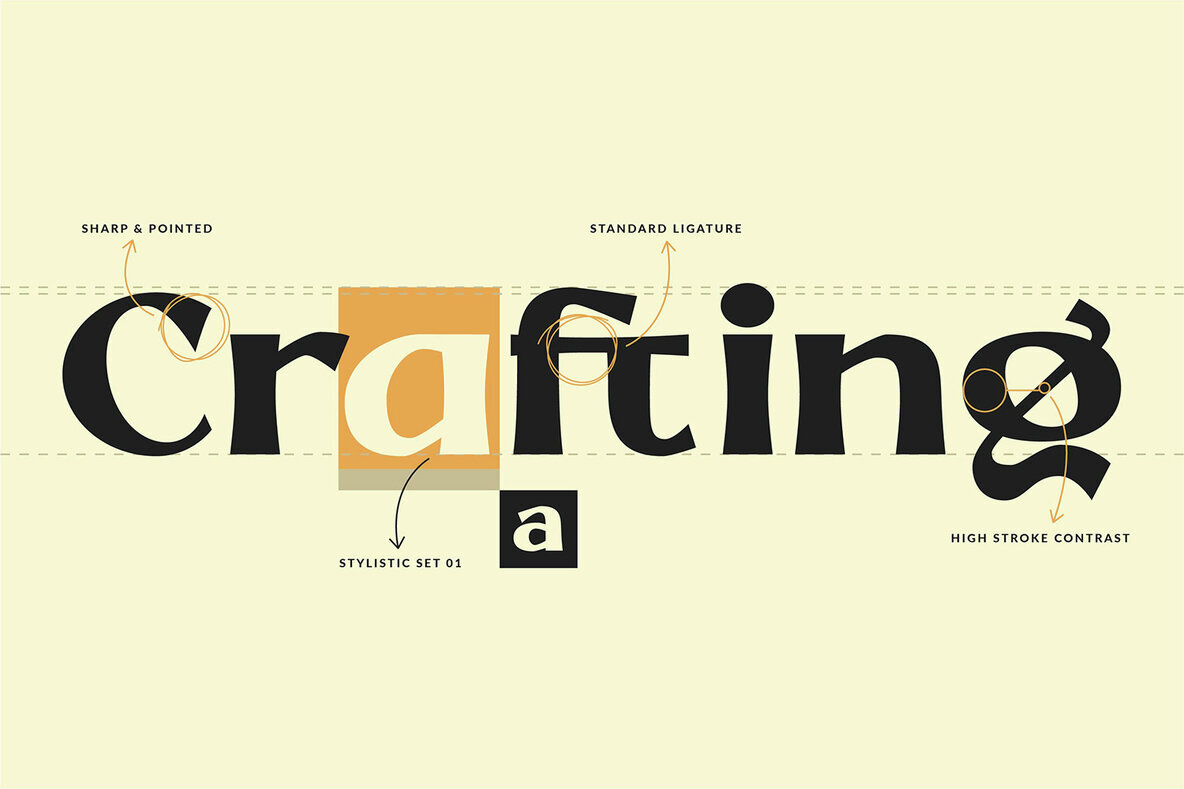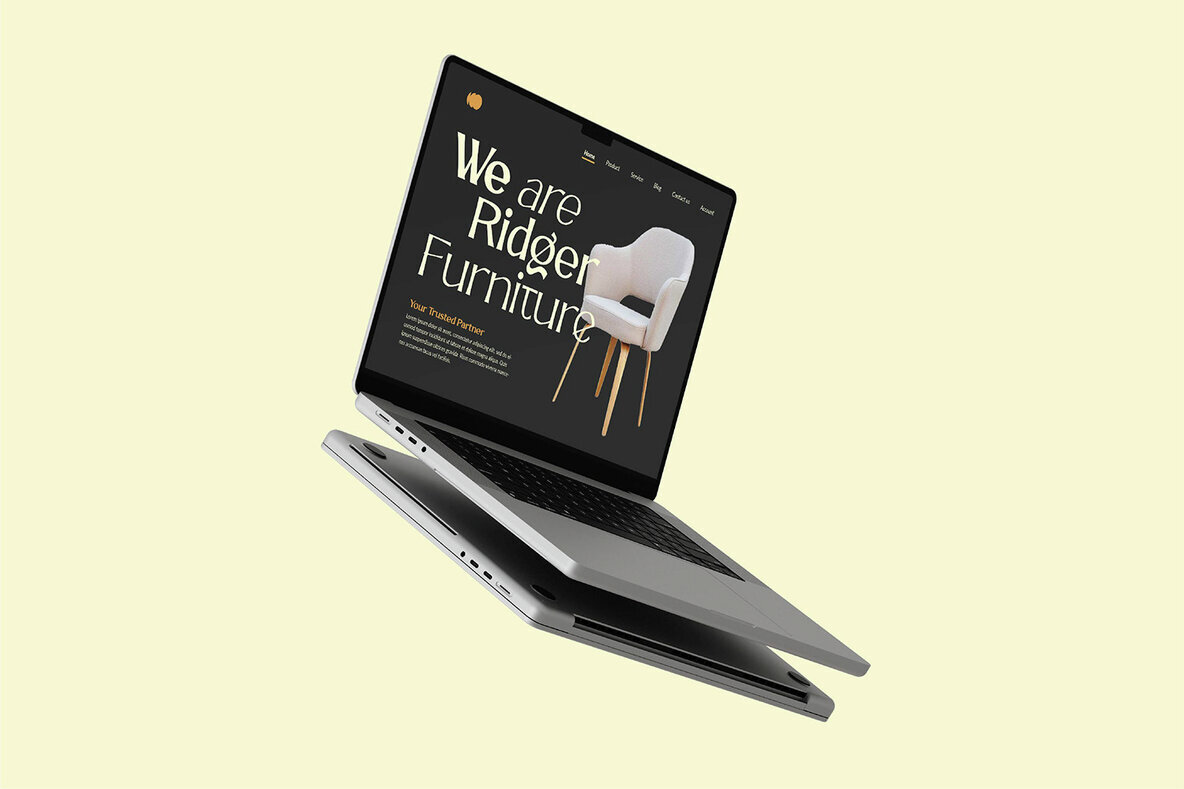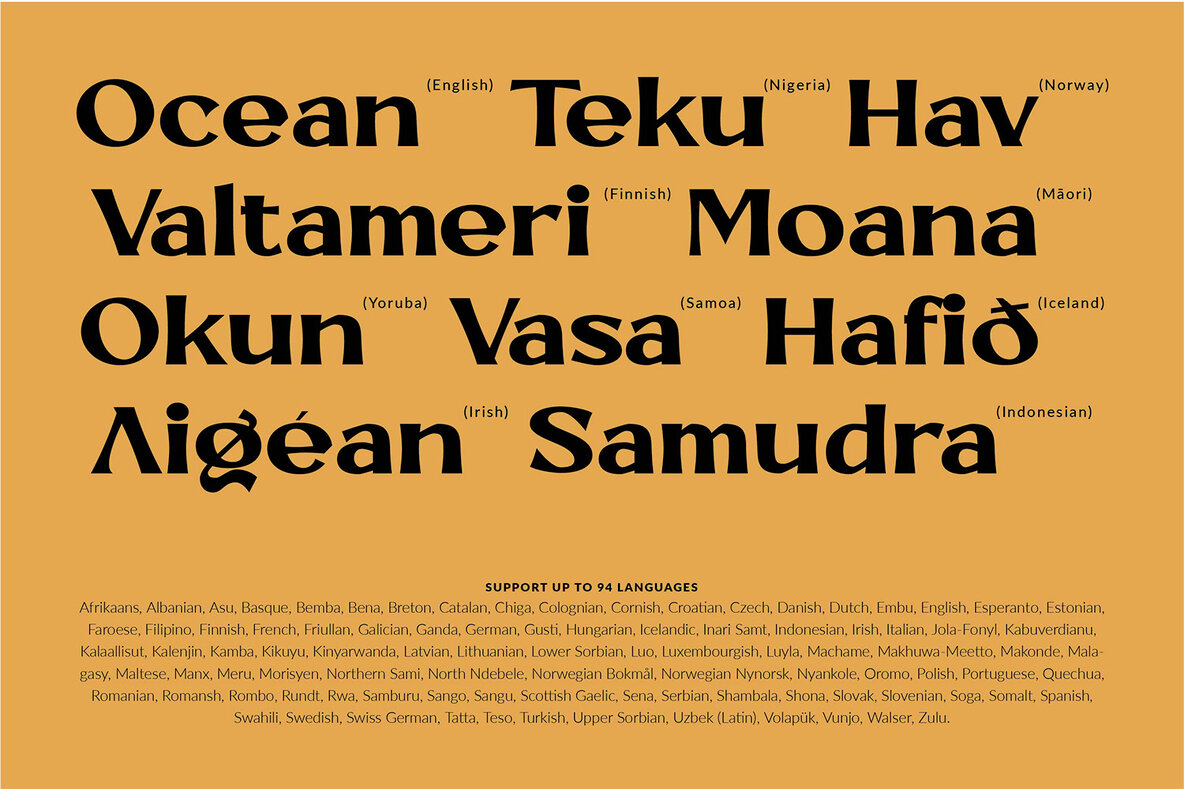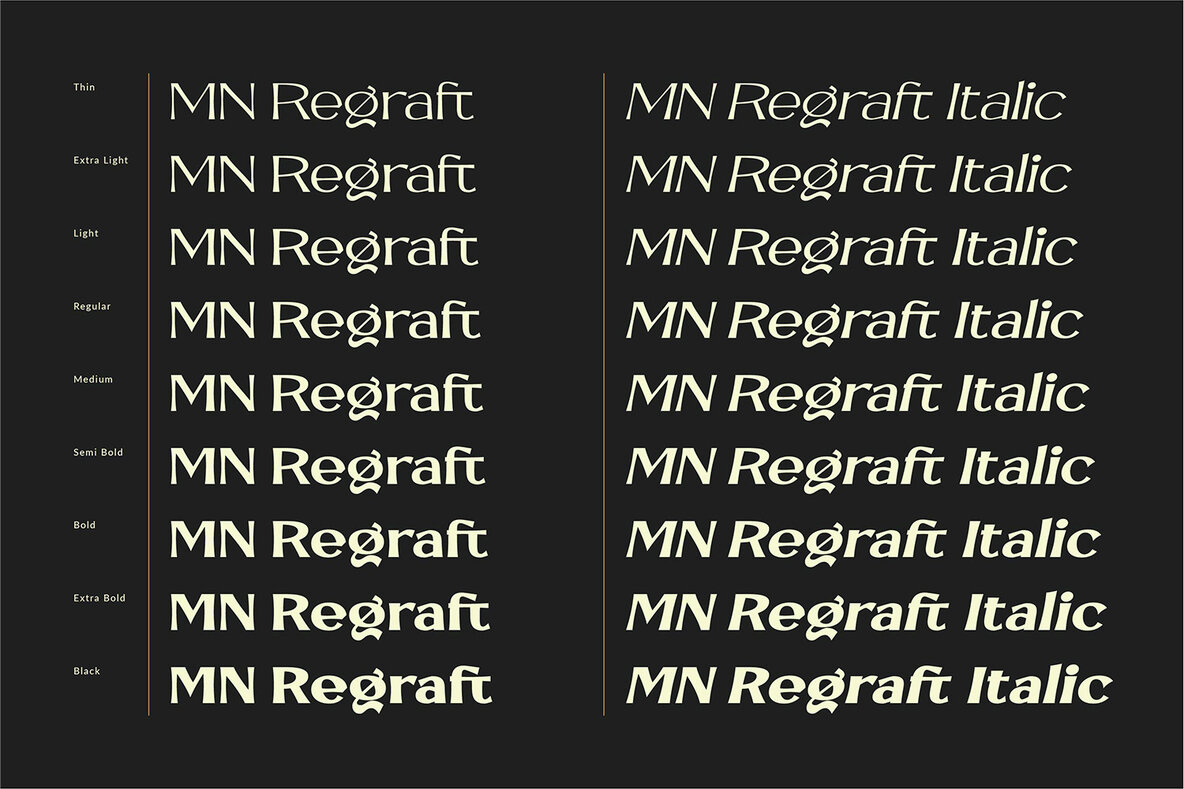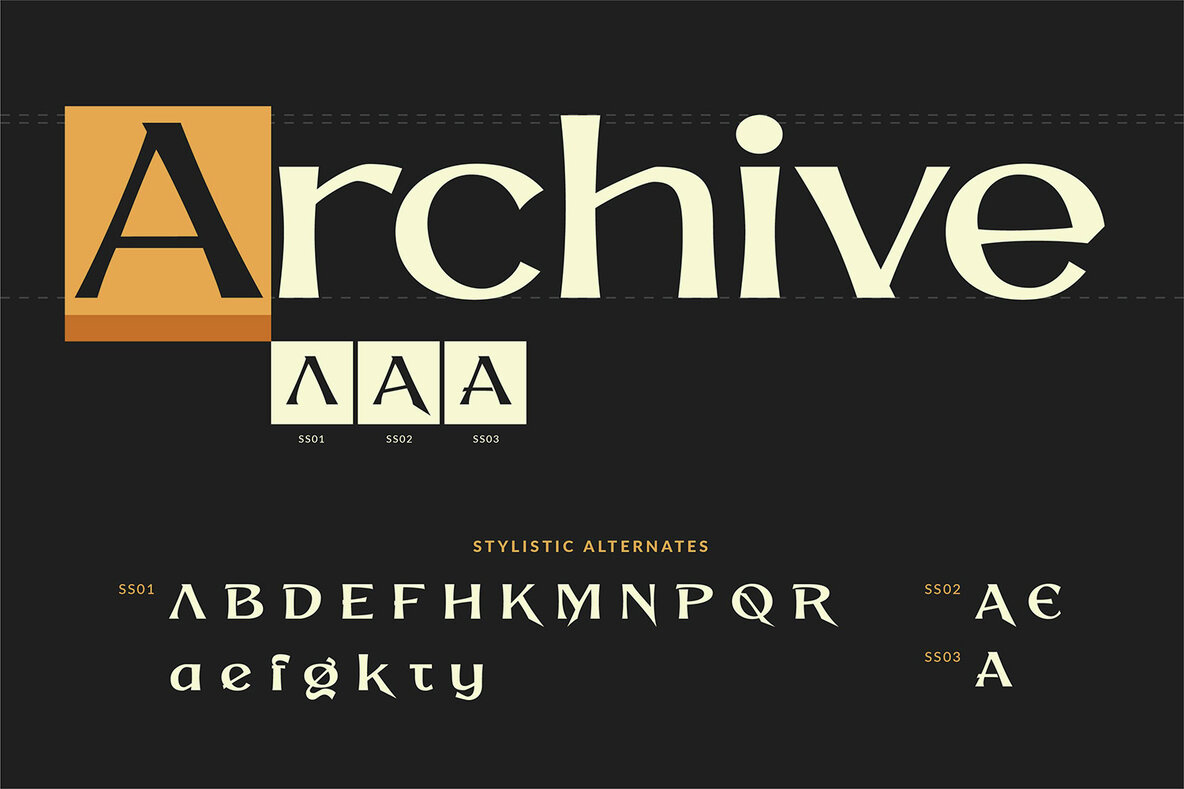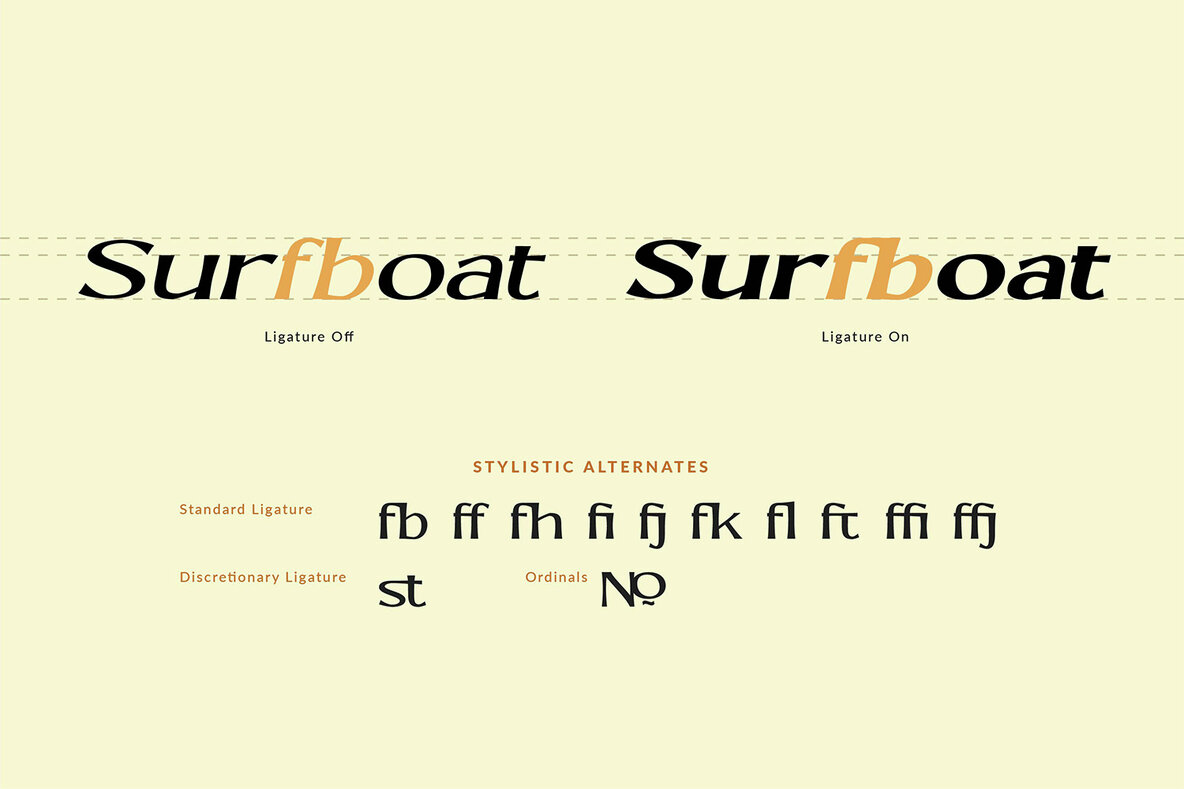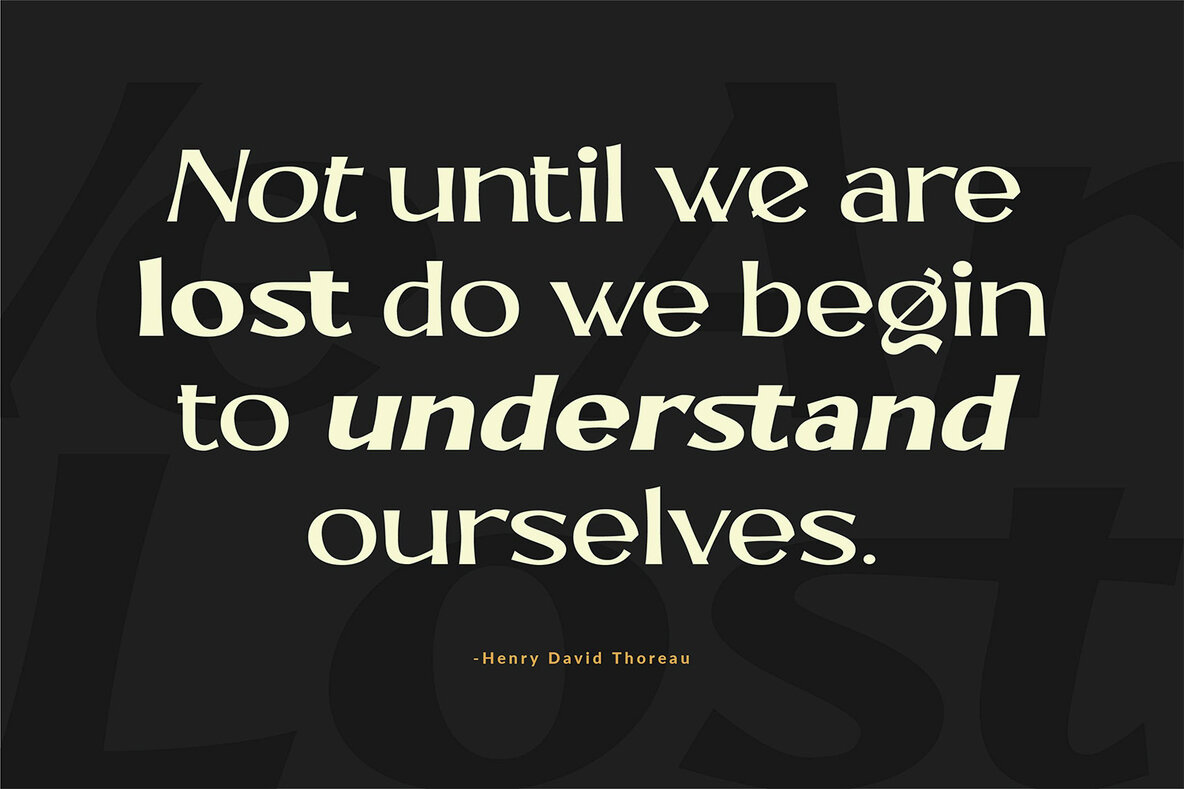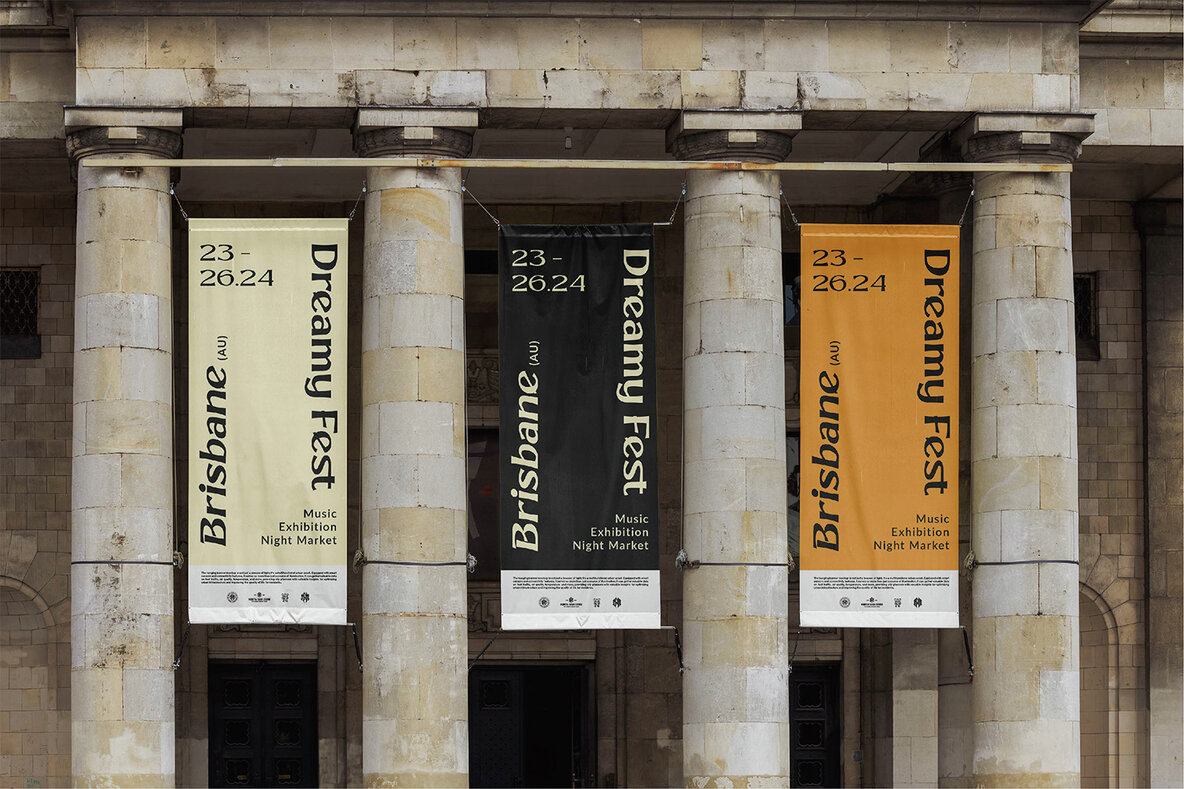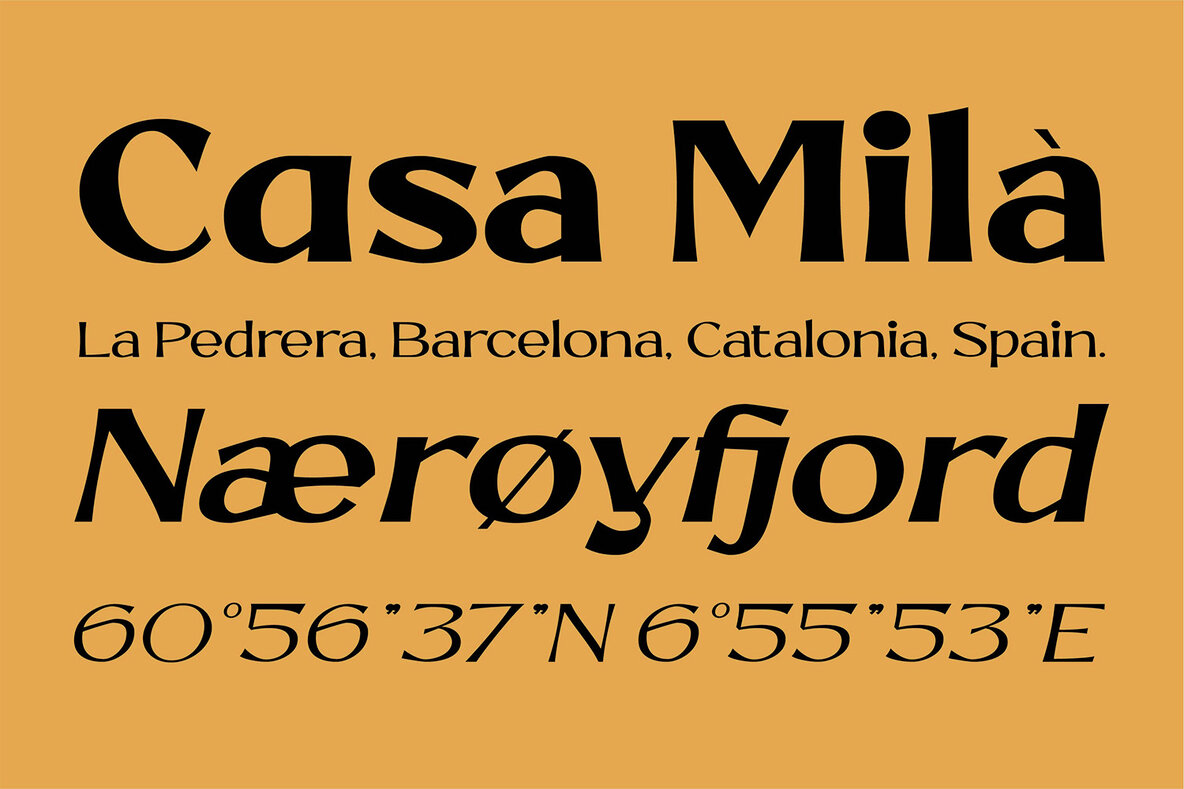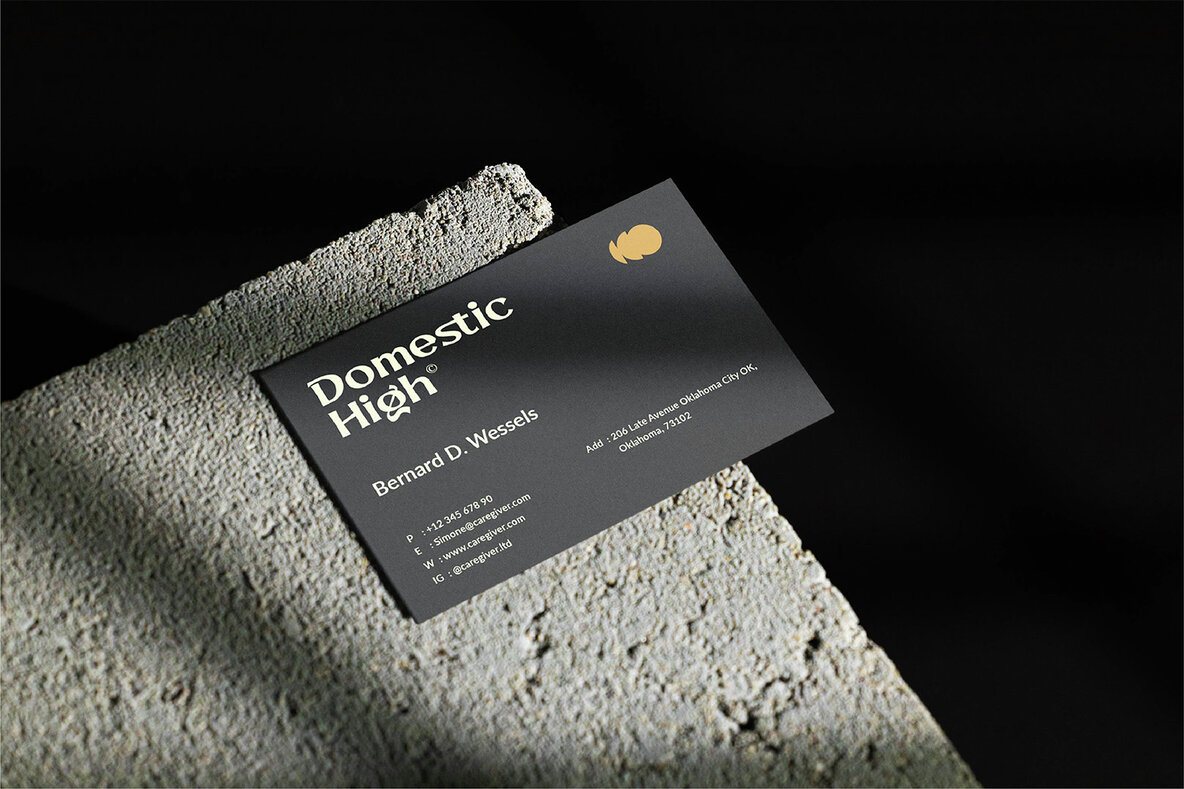
MN Regraft Font
MN Regraft is a meticulously crafted display sans serif font designed to make a bold statement. Featuring nine distinct font weights, from thin to black, and available in two versatile styles—regular and italic—this font offers immense design flexibility. Its refined stroke contrast imparts a modern touch, ideal for creating striking headlines, titles, logos, and other display elements that require a distinctive, contemporary look. Delivering both visual emphasis and authority, this typeface exudes strength and stability, making it an excellent choice for designers in search of a sleek yet commanding font.
With support for 94 languages, MN Regraft is perfectly suited for versatile applications, particularly in editorial, branding, and web design projects. Its Opentype features include 441 glyphs, 11 ligature sets, and 3 stylistic sets, ensuring creative freedom and precision. This font is a must-have for any project requiring a modern sans serif typeface. It's an exceptional option for bold headline fonts in posters, magazines, corporate profiles, or any application demanding standout typography. Keywords such as sans serif font, display font, and modern typeface highlight its versatility and relevance in today's design landscape.